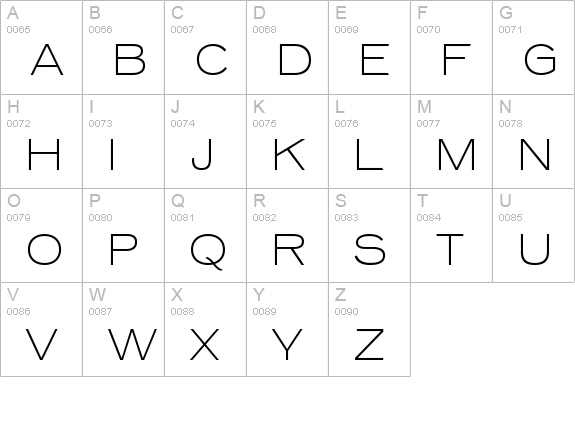
Vonnes-LightExtended Font Details
Vonnes-LightExtended is a stunningly elegant font that seamlessly blends sophistication with a touch of playfulness. Its extended letterforms exude a sense of grace and modernity, making it the perfect choice for any design project that requires a touch of refinement. This font's clean lines and balanced proportions give it a timeless appeal, making it suitable for a wide range of applications. Whether you're designing a logo, creating a beautiful invitation, or crafting a captivating headline, Vonnes-LightExtended will effortlessly elevate your design to new heights. And the best part? Vonnes-LightExtended is completely free! You can easily download this font from FontsMarket.com, one of the leading online platforms for high-quality fonts. With just a few clicks, you can add this exquisite typeface to your collection, ready to use in any personal or commercial project. Don't miss out on the opportunity to enhance your designs with the elegance and versatility of Vonnes-LightExtended font. Download it for free today and let your creativity soar to new levels.